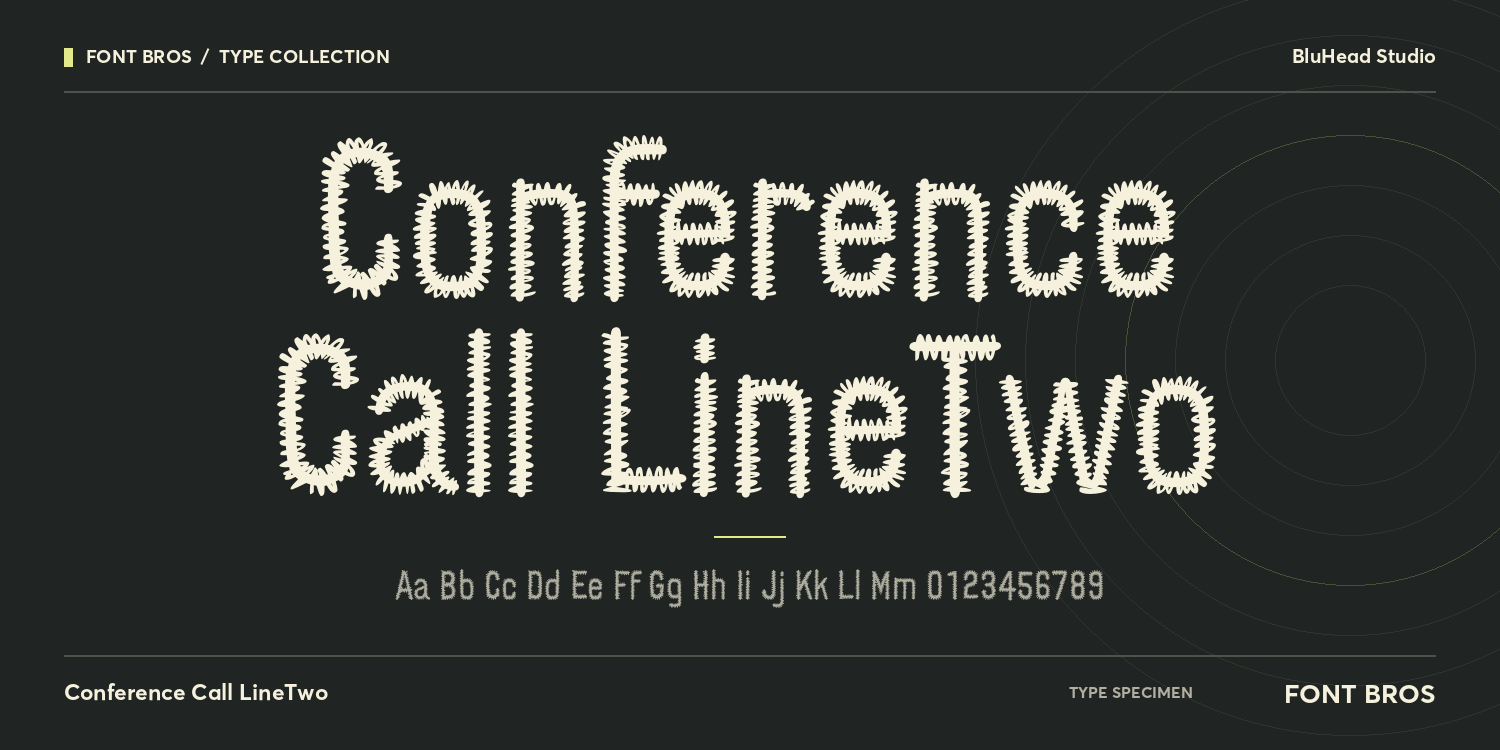
Conference Call LineTwo
Conference Call LineTwo by BluHead Studio is a playful, hand-drawn display font with tall, condensed letterforms and wonderfully textured edges. Its looping, stitched-like construction gives every character a lively handmade feel while keeping the overall design readable and versatile.
It’s a natural fit for posters, packaging, apparel, book covers, greeting cards, social graphics, branding, and other designs that call for something friendly, quirky, and full of personality.
Pair Conference Call LineTwo with a simple sans serif for contrast, or combine it with illustrations and organic textures for an even more handcrafted look. It’s a distinctive display font that can turn even a few words into the focal point of a design.
It is also one of the branding fonts for Scouts Canada.